Discover the World of Techno Fonts: Free Downloads for Creative Minds.📣
Techno fonts are characterized by their geometric shapes, sharp angles, and often digital-inspired styles. They evoke a sense of innovation and technology, making them ideal for tech-related projects, sci-fi themes, or any creative endeavor that aims to push boundaries. By incorporating these fonts into your work, you can create a distinctive look that stands out in today’s visually driven world.
In this blog post, we’ve curated an impressive selection of free techno fonts that you can easily download and use in your projects. Each font is unique, offering various styles to suit different design needs. From bold and striking to sleek and minimalistic, there’s something for everyone.
Signord Font
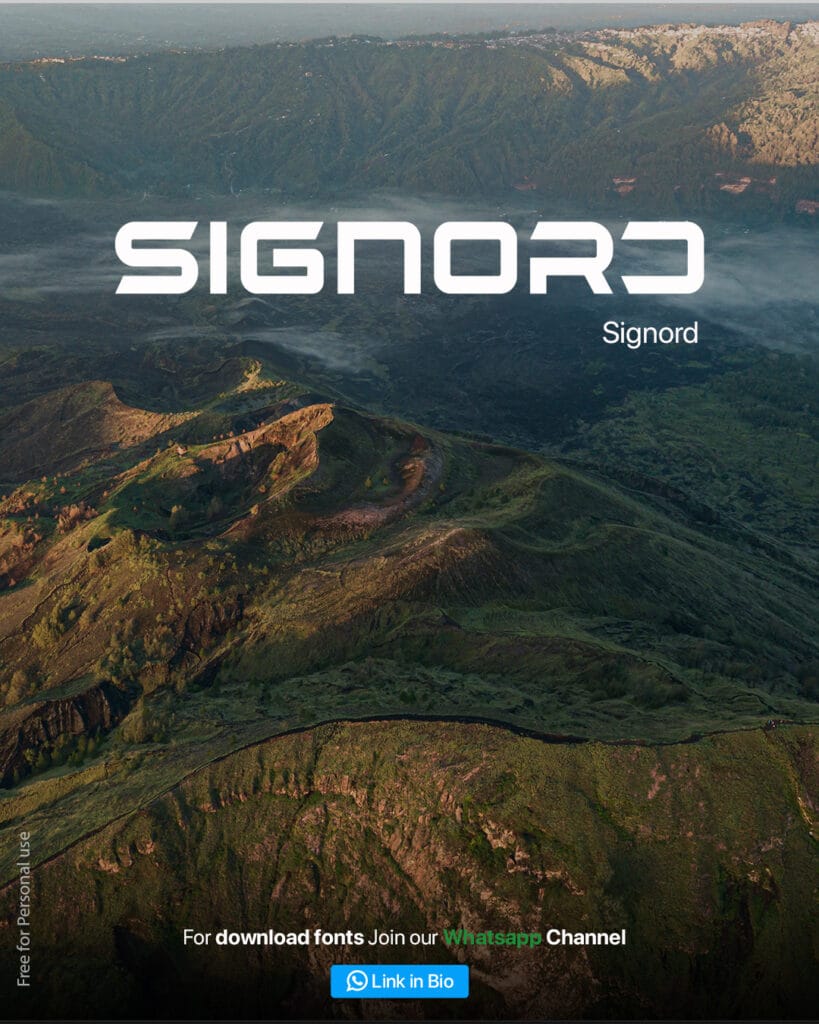
Lenoz Konzer Font
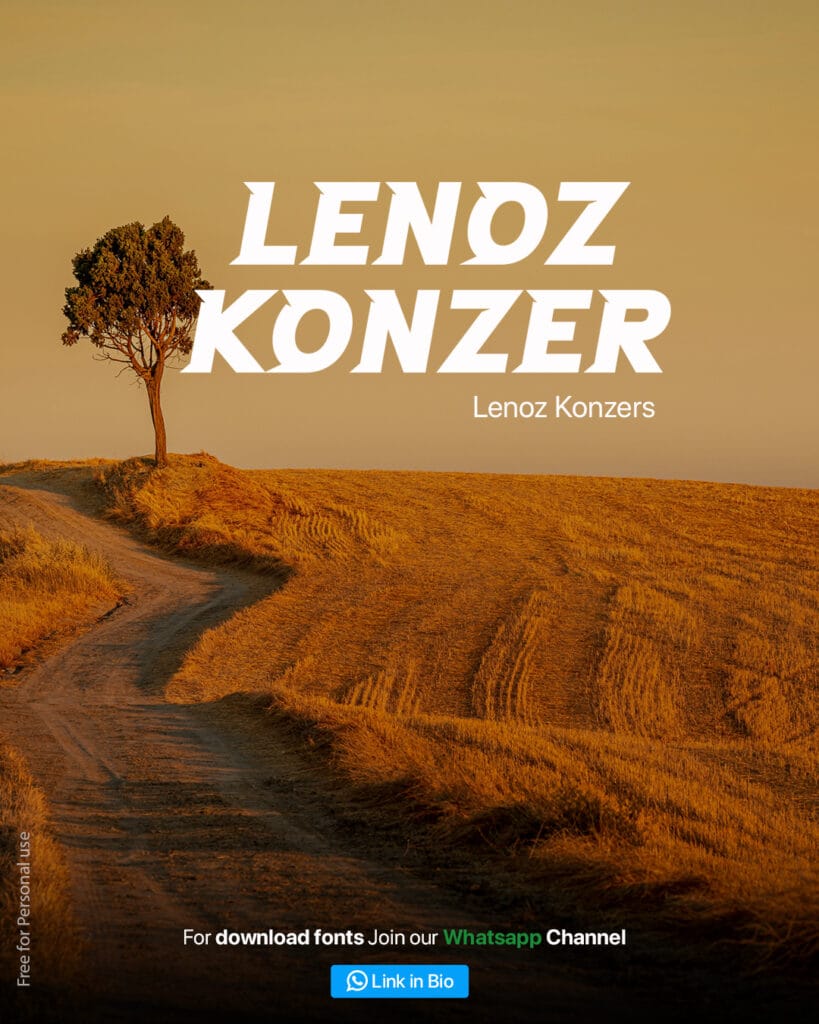
Infusive Font
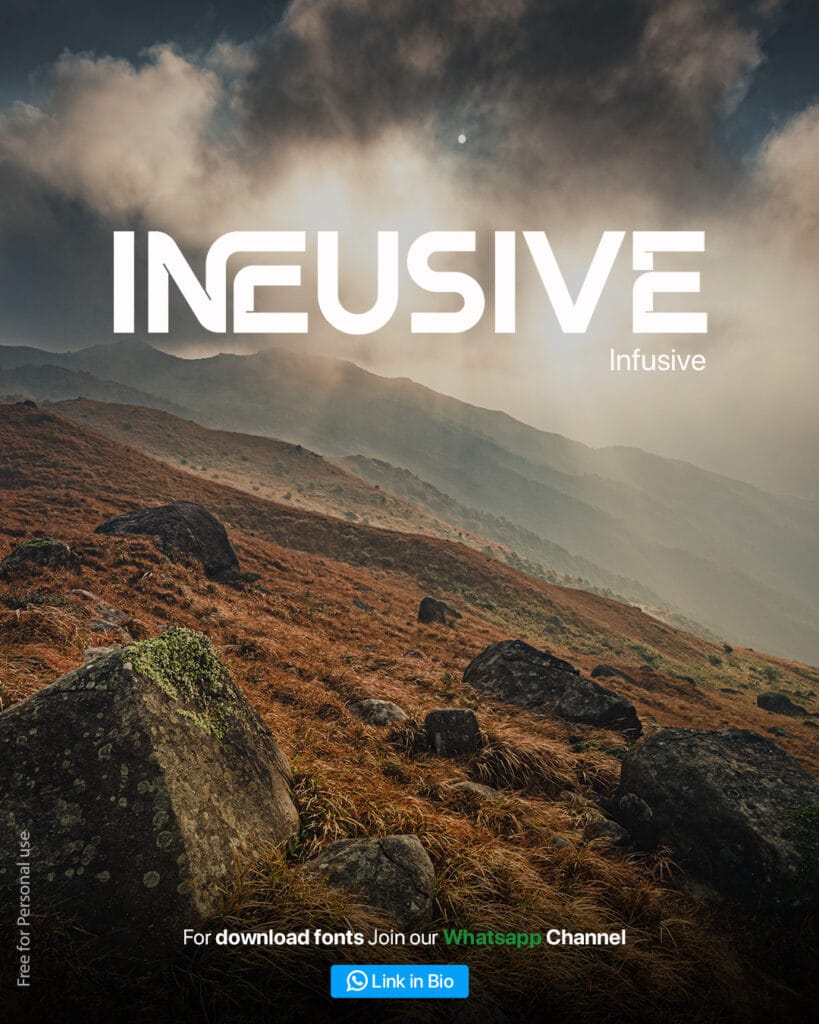
Bidrode Font
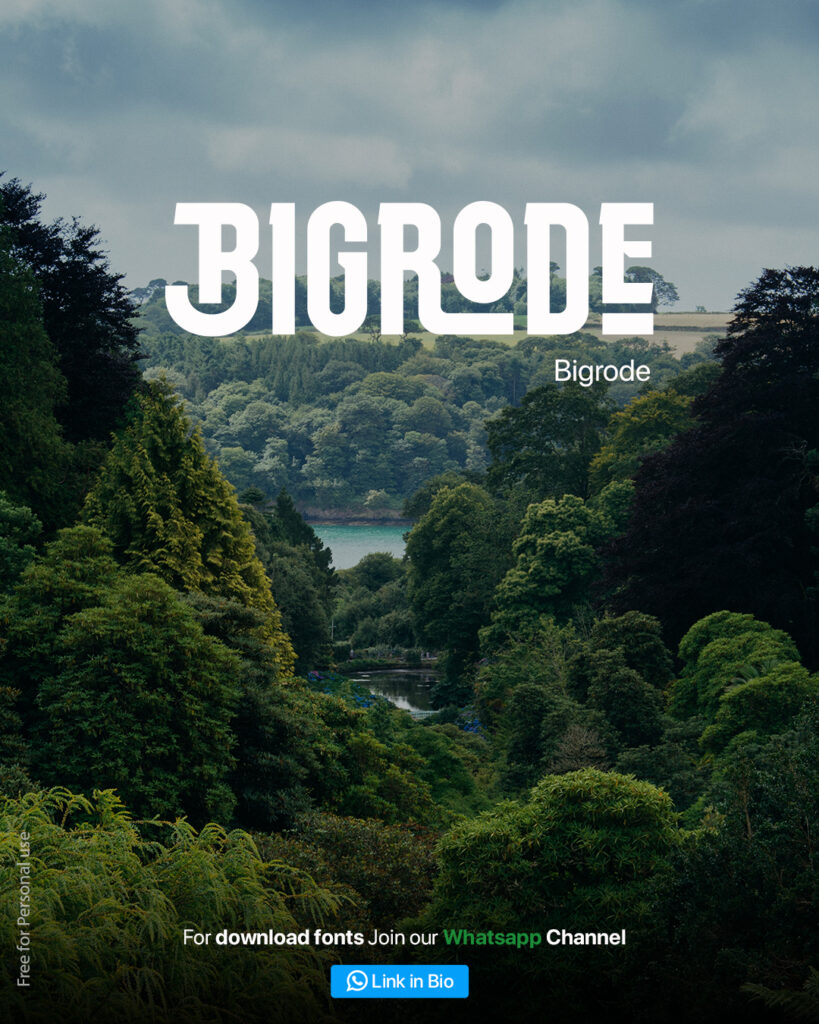
Antheroma Font
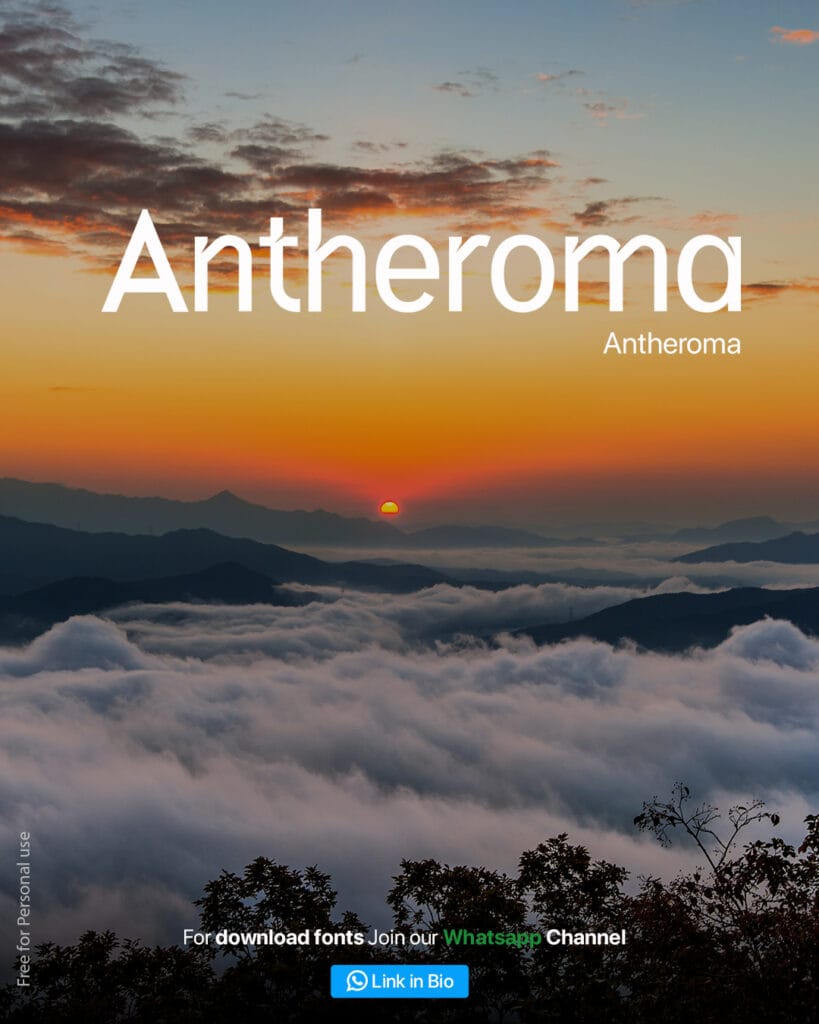
Meriah Font